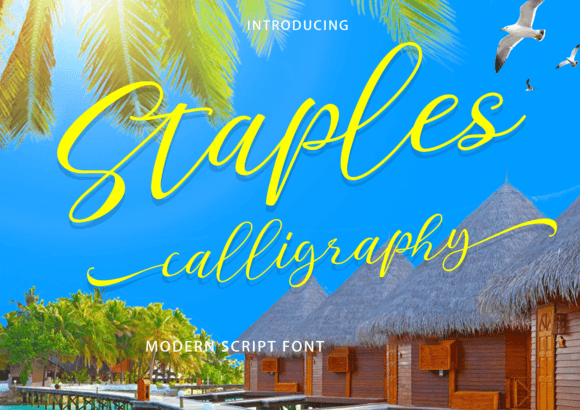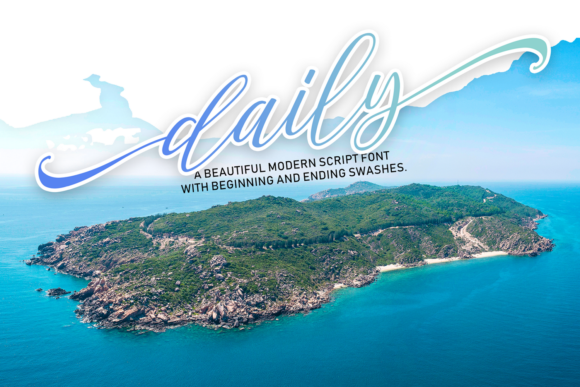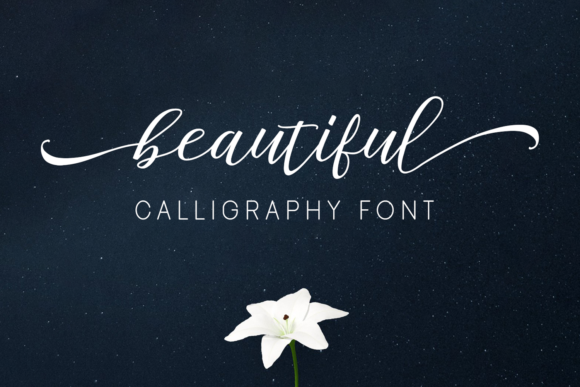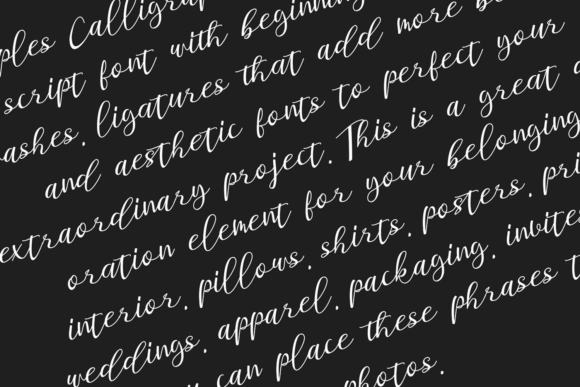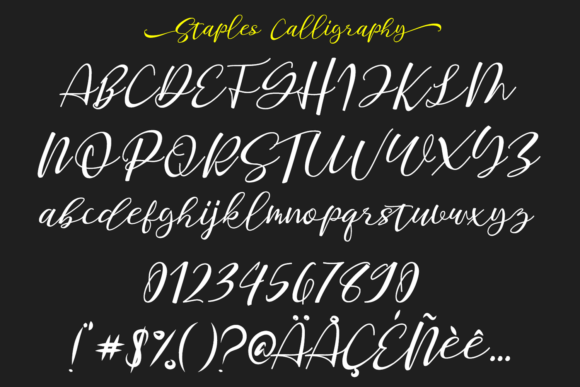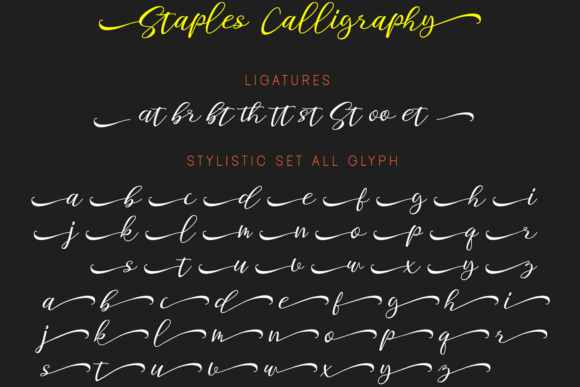
Staples Calligraphy Font
About Staples Calligraphy Font
Staples Calligraphy is a modern and elegant script font. It features an incredibly classic style, while still keeping a friendly feel. Staples Calligraphy is the perfect font for making original and outstanding designs.